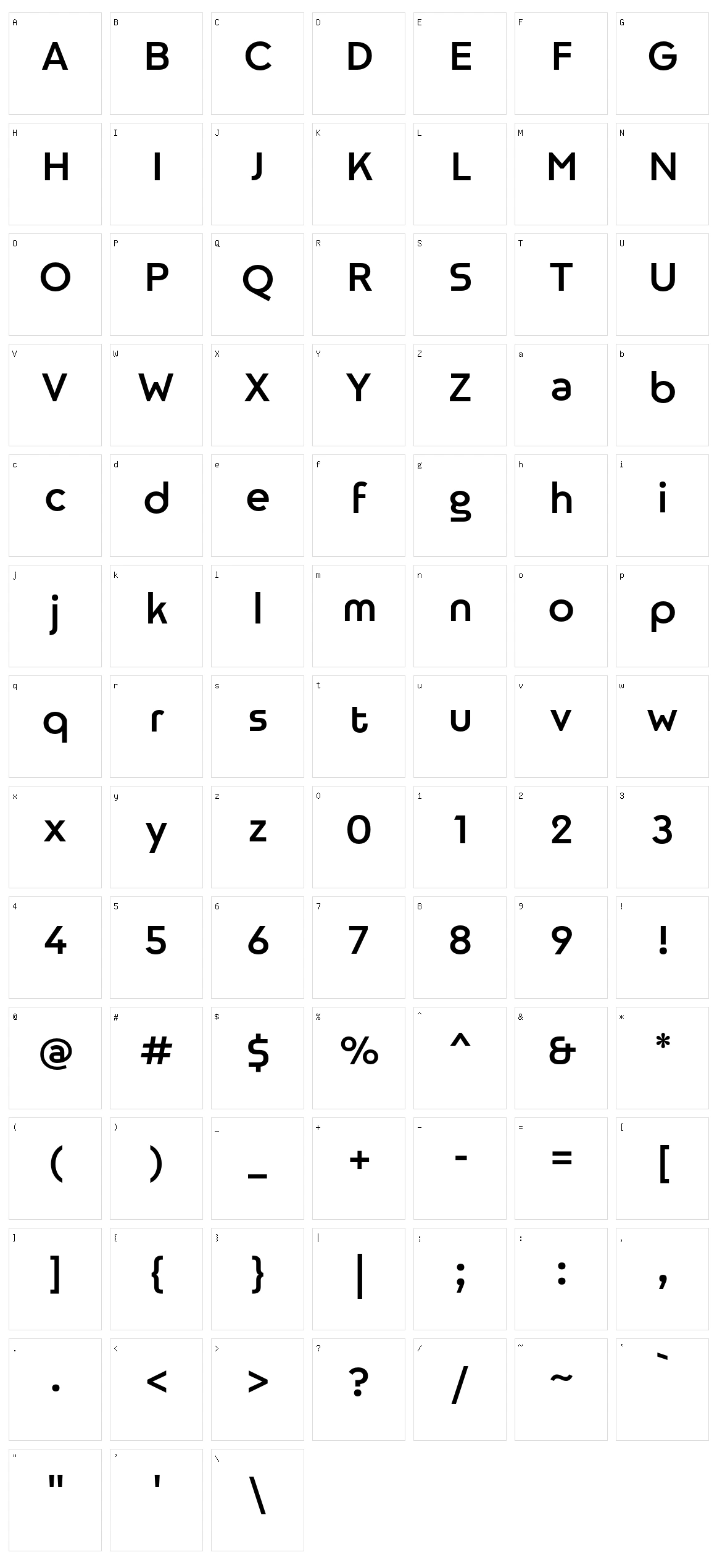
The free font Nineteenth is carefully designed by Igor Kosinsky, showcasing a thoughtful balance of creativity and usability and falls under the Sans serif font style. When you download the ZIP file, it contains only 111.77 KB of font files, making it lightweight and quick to download. Please review the license details below to understand permitted usage and distribution rights. If license information is not available, we recommend using this font for personal projects only or contacting the author directly for commercial usage permissions.